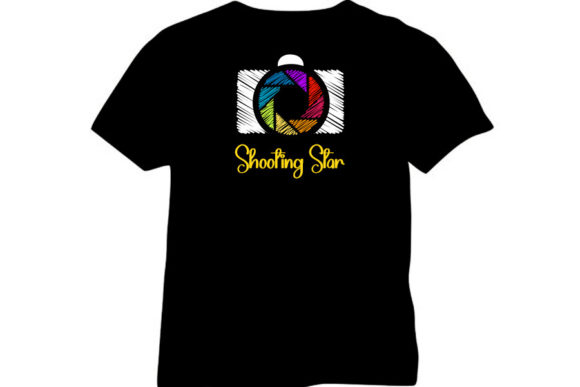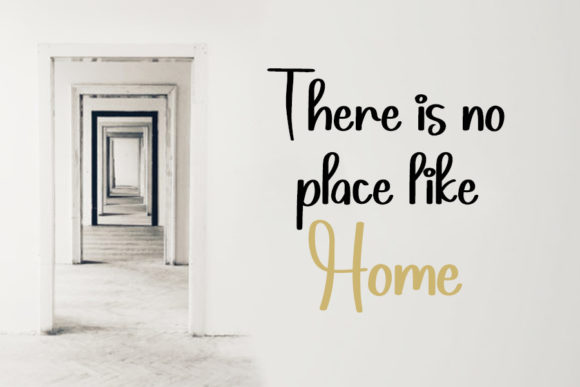
Daughter Font
db-ku.com - Script & Handwritten -- Daughter is a romantic and sweet handwritten typeface with characters that dance along the baseline. It has a casual, yet elegant touch. Joyful and bright, this font will make each of your designs come alive!